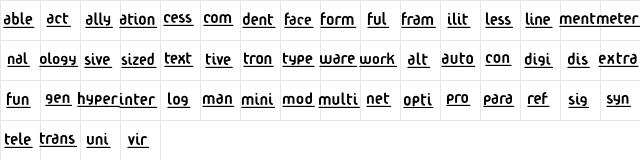
Condition Birth
Design Context for Condition Typeface
Condition offers clean, dependable letterforms without strong stylistic allegiance, making it a practical choice for designers who need flexibility. The condensed width makes it efficient for tight spaces without sacrificing legibility.
Pro Tip: Use Condition in both headline and body roles to test its range before committing to a single application.